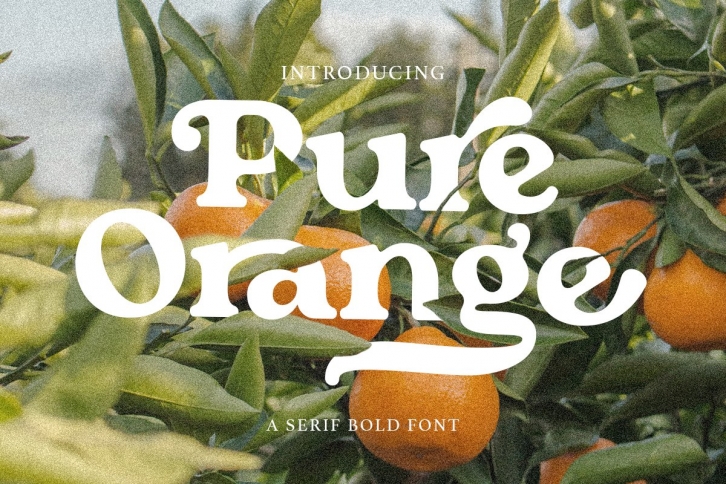
Introducing, new font, Pure Orange - a serif bold font with retro vibes!
Pure Orange is a stylish and bold serif with a bunch of ligatures and alternates that will make your presentation or logo even more retro and vintage! This stylish font is suitable for any purpose, such as poster, logotype, quotes or even your wedding invitations. With swash and stylish alternates will make your project more unique and stunning. Pure Orange also support Multi Language.
- Alternates for each characters